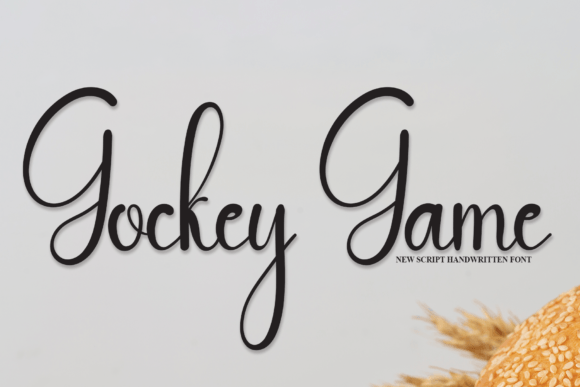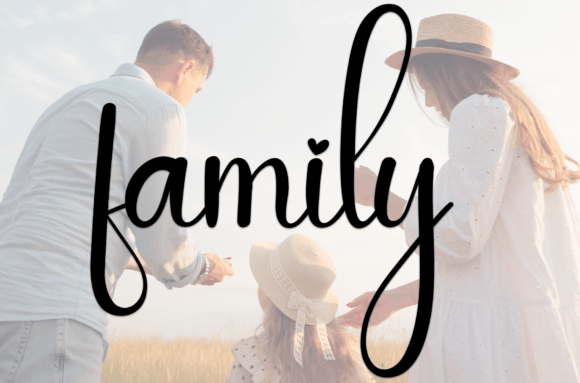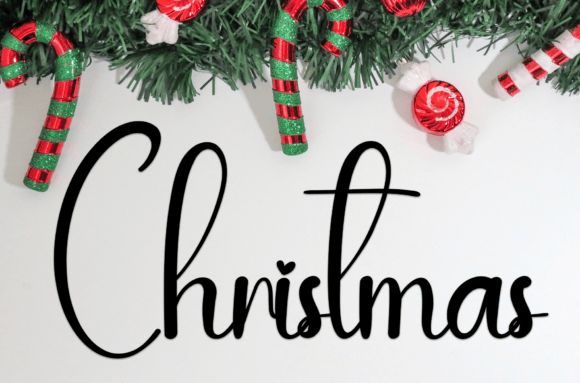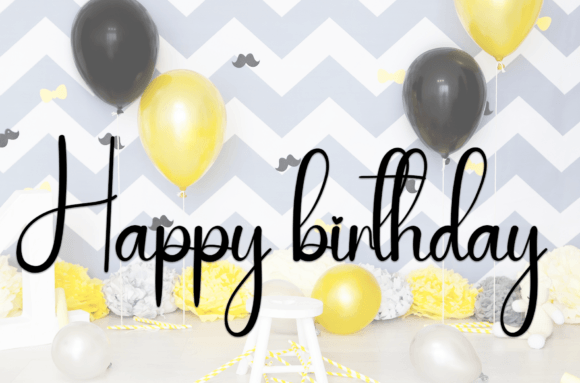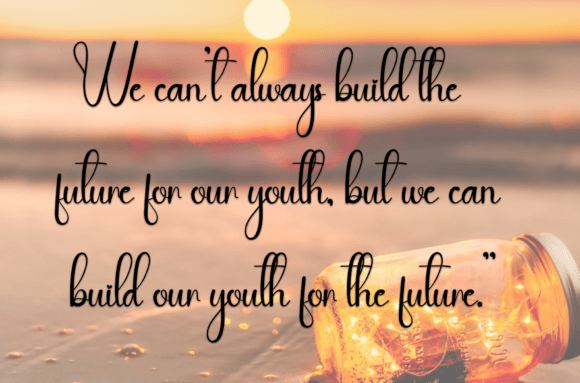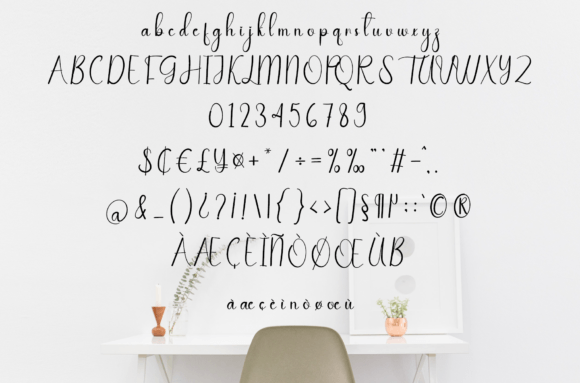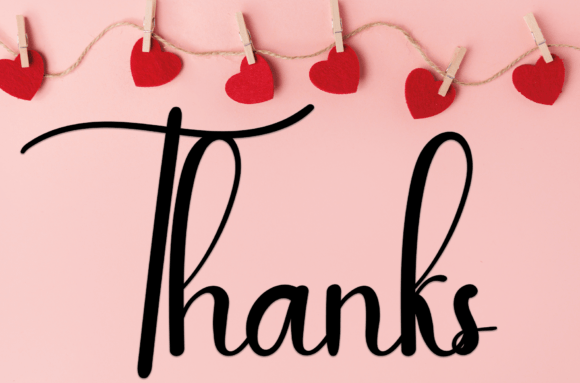
Gockey Game Font
About Gockey Game Font
Gockey Game is a sweet and friendly handwritten font designed to bring a cheerful and personal touch to your creative projects. With its smooth curves and playful character, this font exudes a relaxed and approachable feel. Whether you’re crafting wedding invitations, greeting cards, branding materials, or social media graphics, Gockey Game adds a heartfelt and delightful charm to any design.
The font features soft, rounded strokes and consistent spacing, creating a harmonious flow in every word you write. It mimics natural handwriting, making your messages appear personal and expressive. Gockey Game is not just beautiful—it’s also easy to read and highly versatile. It works well across different formats, from digital screens to printed materials.
A Lovely Touch for All Occasions
Gockey Game stands out for its simplicity and charm. It’s not overly formal or complex, which makes it ideal for casual yet elegant design projects. Whether you’re designing a romantic wedding invite or a playful birthday card, this font adapts effortlessly to the mood of your project.
One of the key advantages of Gockey Game is its wide range of applications. It’s suitable for personal projects and professional designs alike. With its warm and friendly vibe, it helps create emotional connections and invites the viewer to engage with the content.
Ideal Uses for Gockey Game Font
• Wedding invitations & save-the-dates
• Baby shower & birthday cards
• Greeting cards & thank-you notes
• Social media graphics (Instagram, Pinterest, etc.)
• Feminine branding & packaging
• Quotes & inspirational messages
• Digital journaling & scrapbooking
• Etsy shop banners or product descriptions
Key Features
• Uppercase and lowercase characters
• Numbers and punctuation
• Smooth and consistent stroke weight
• PUA encoded – access all swashes and alternates with ease
• Multilingual support
Whether you’re a hobbyist creating DIY projects or a designer building a visual identity, Gockey Game makes it simple to add a soft and delightful personality to your work.
Why Choose Gockey Game?
Fonts play a big role in expressing tone, and Gockey Game nails the friendly and relaxed vibe perfectly. It gives your text a human touch that feels both joyful and heartfelt. Unlike generic script fonts, Gockey Game feels fresh, handcrafted, and sincere. It’s a font that truly speaks to the viewer without shouting.
Its versatility ensures that Gockey Game can be a dependable addition to your font library—one you’ll reach for again and again. Whether you’re working on personal passion projects or professional designs for clients, this font is sure to deliver warmth, personality, and style.